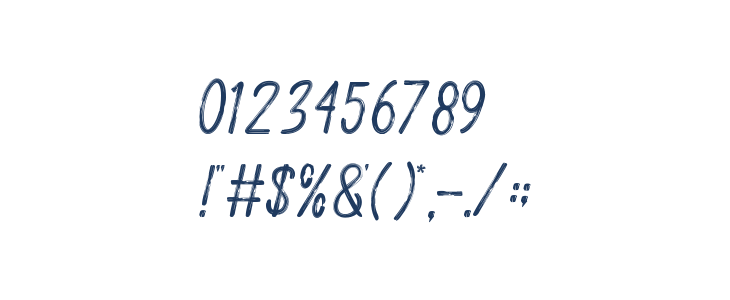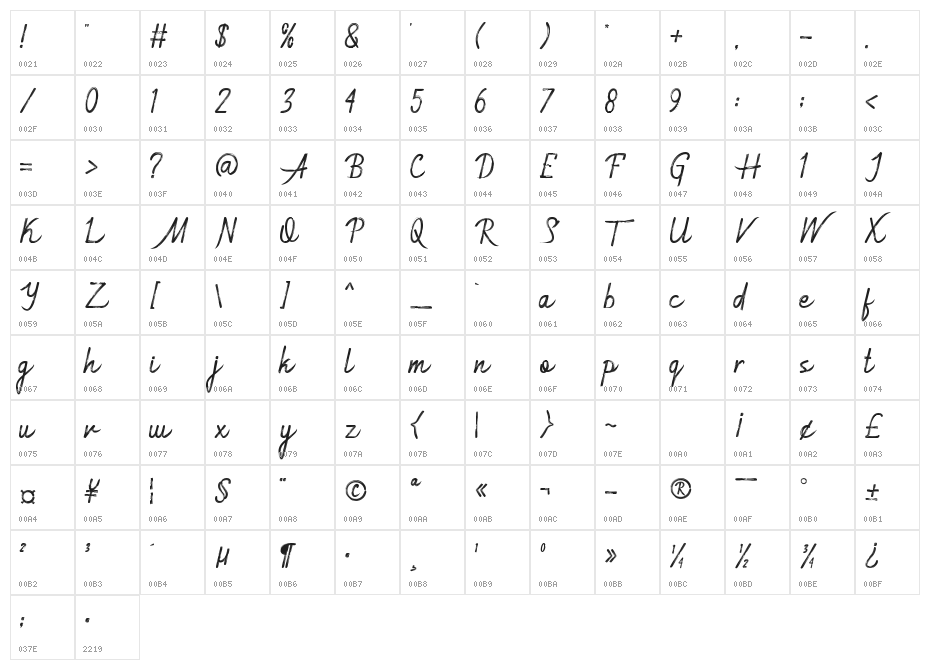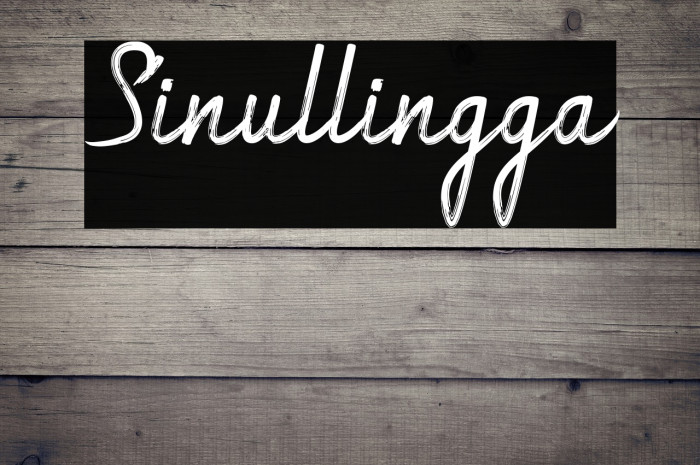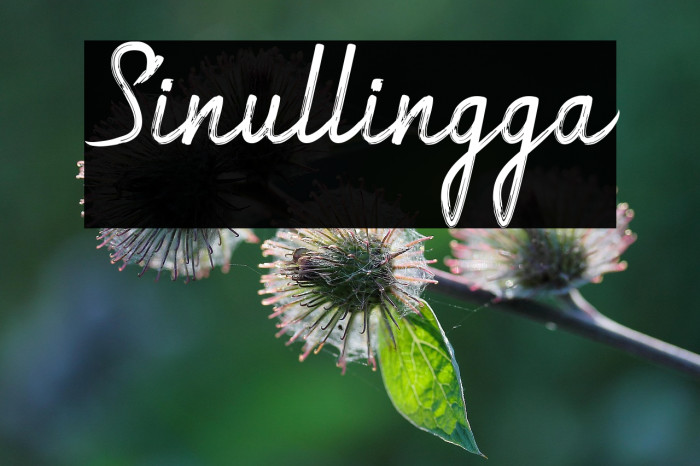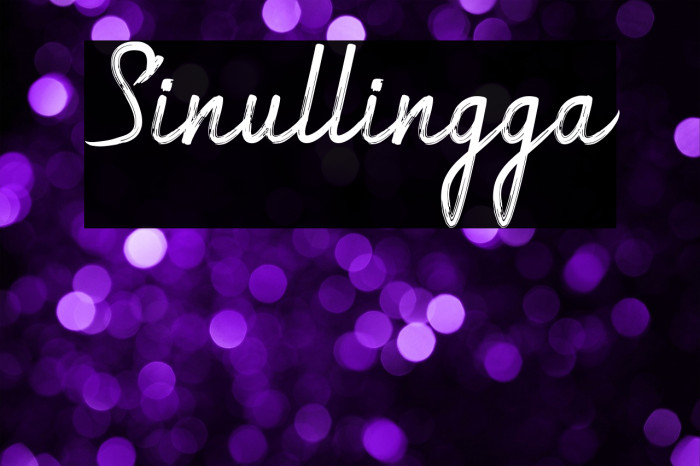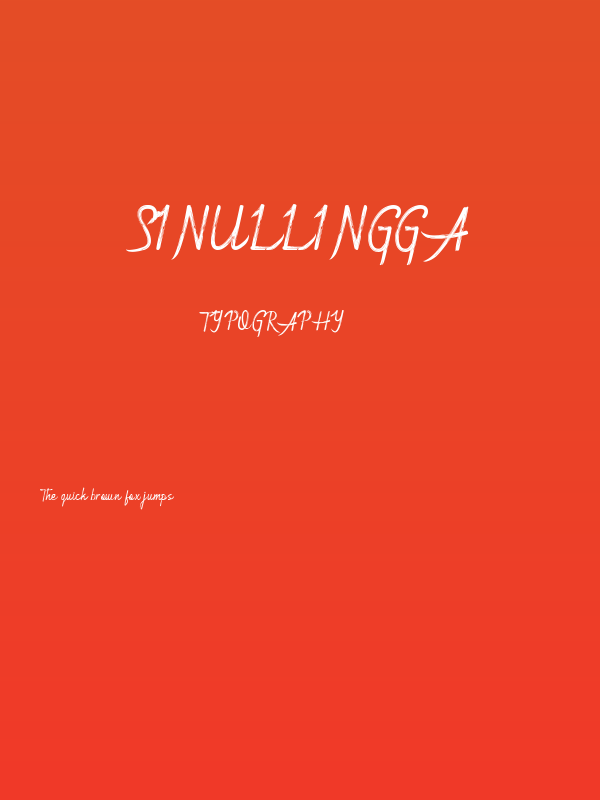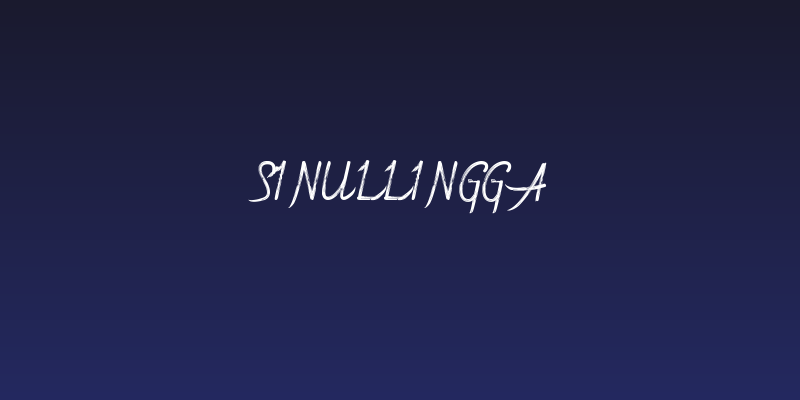
Sinullingga Font
Sinullingga Description
This font features a dynamic and expressive script style, characterized by its fluid and cursive strokes. The letters are elegantly connected, giving a sense of movement and grace. The uppercase letters are slightly more elaborate, with sweeping ascenders and descenders, while the lowercase letters maintain a consistent flow. The numerals and special characters are designed to complement the overall style, maintaining the same fluidity and elegance. This font exudes a sense of sophistication and creativity, making it suitable for projects that require a personal and artistic touch.